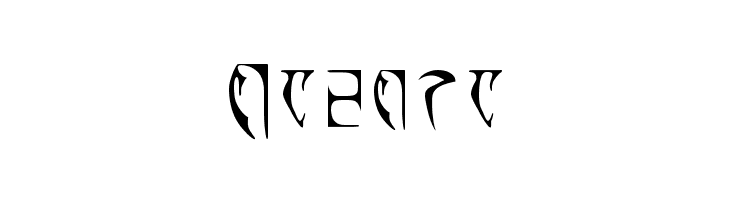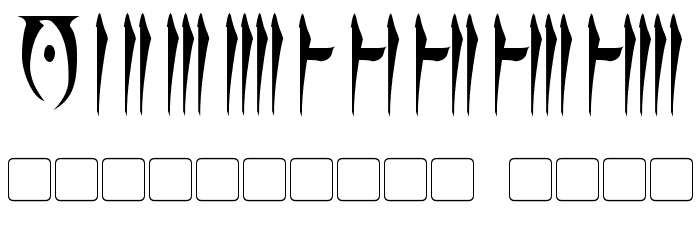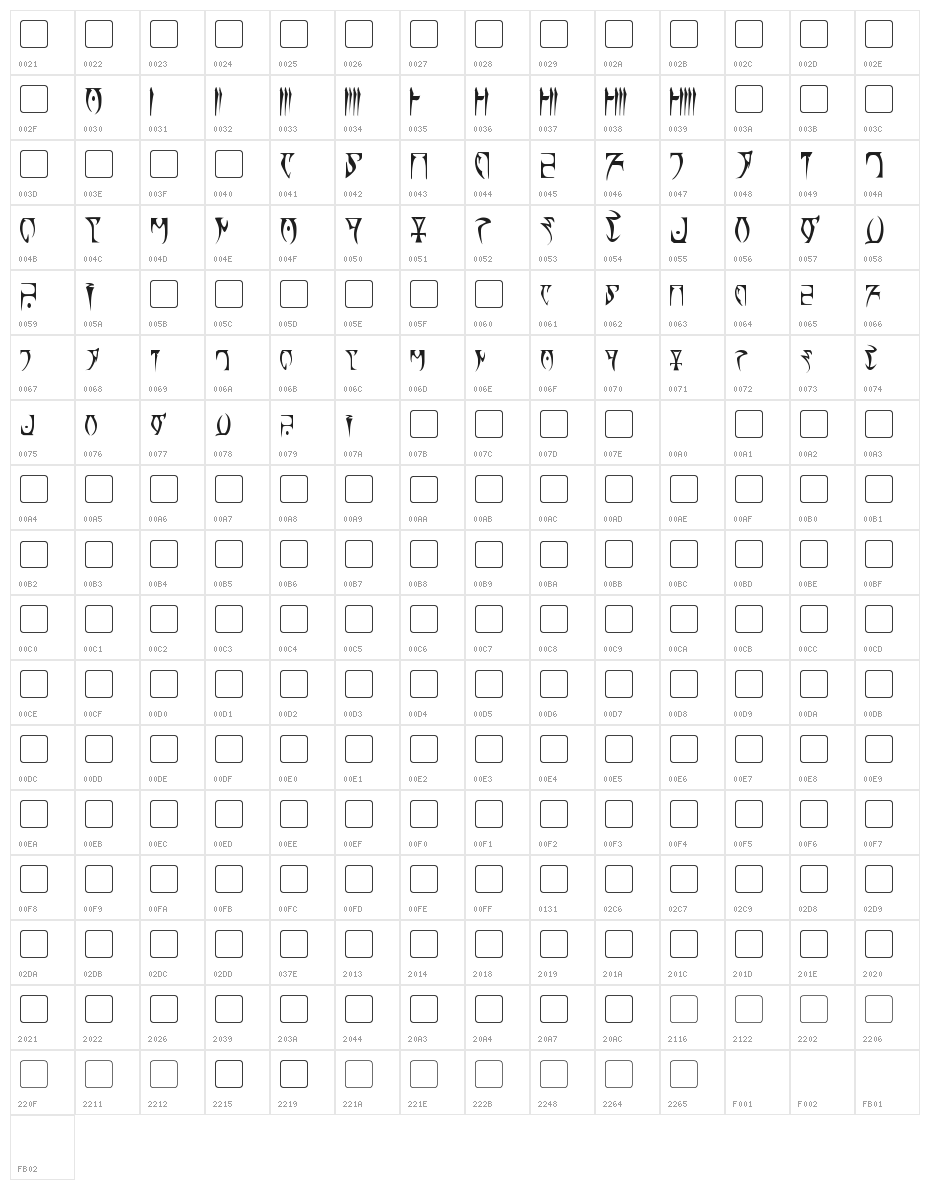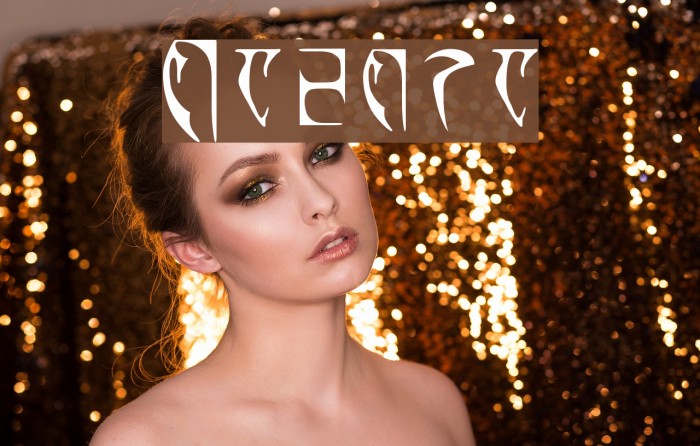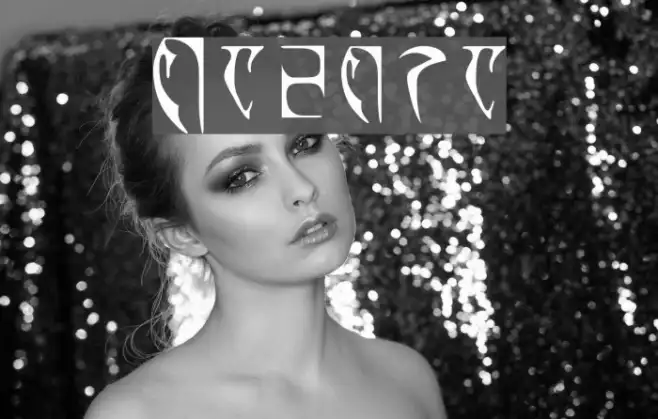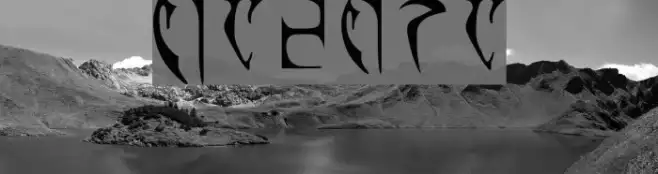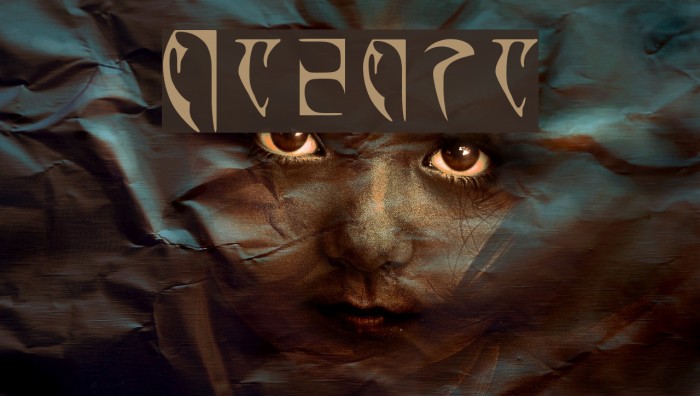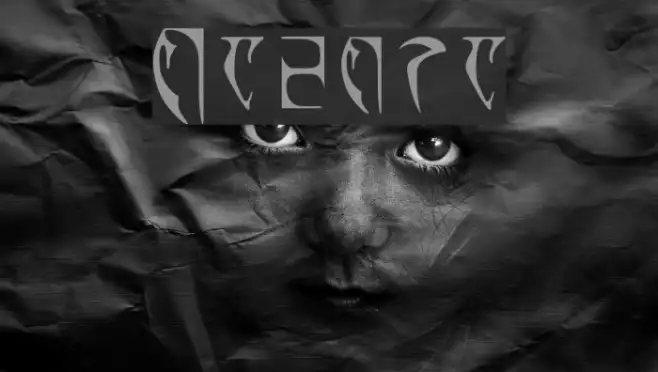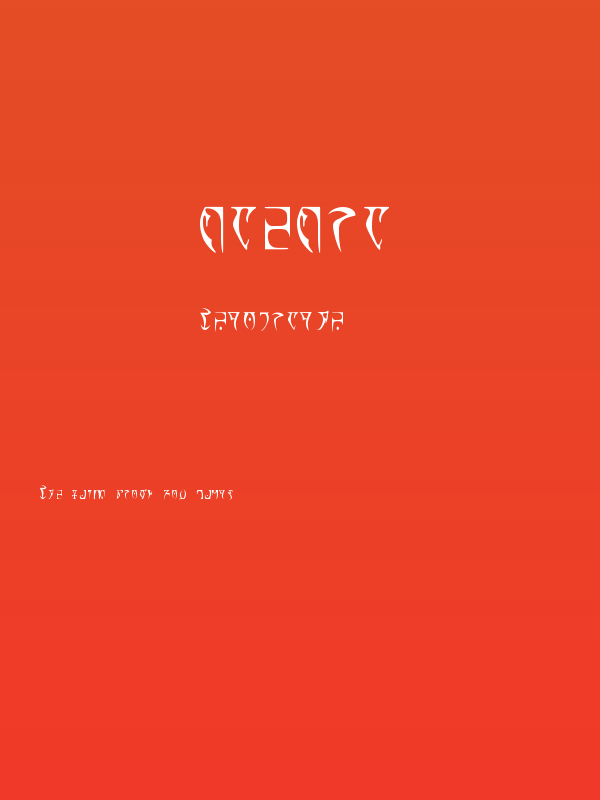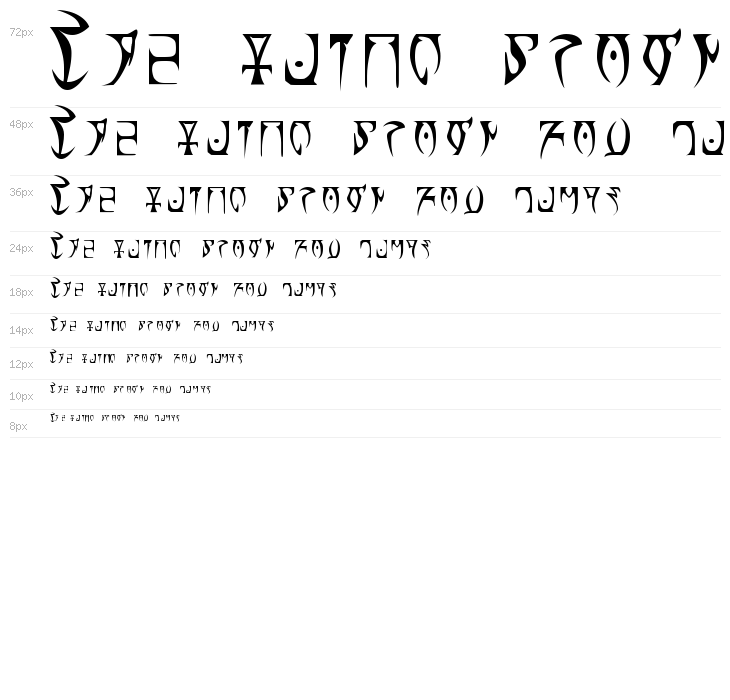
Daedra Font
Daedra Description
This font features a highly stylized and angular design, reminiscent of ancient or mystical scripts. Each character is crafted with sharp, pointed edges and dramatic curves, creating a sense of mystery and otherworldliness. The characters are bold and striking, with a high contrast between thick and thin strokes. This font does not adhere to traditional Latin alphabet forms, offering a unique and decorative appearance that is both captivating and enigmatic. The overall aesthetic is dark and gothic, making it suitable for fantasy-themed projects or designs that require an element of intrigue and mysticism.
| Overall Style | Mystical, Gothic, Fantasy |
| Proposed Projects | Ideal for fantasy book covers, game design, movie posters, or any project requiring a mystical or ancient theme. |